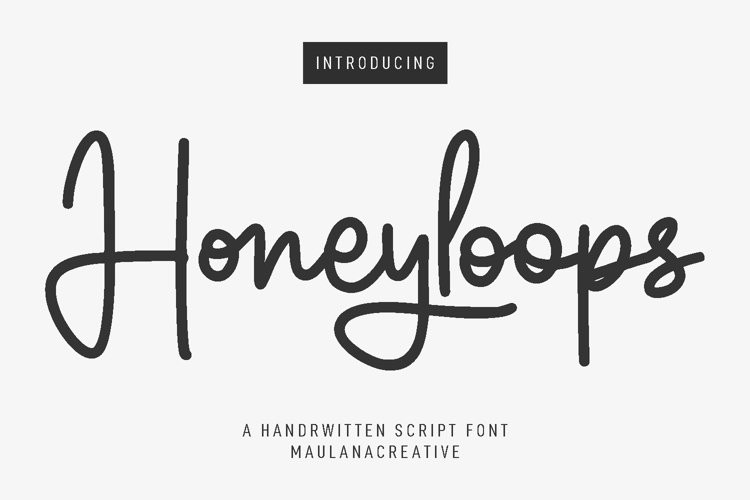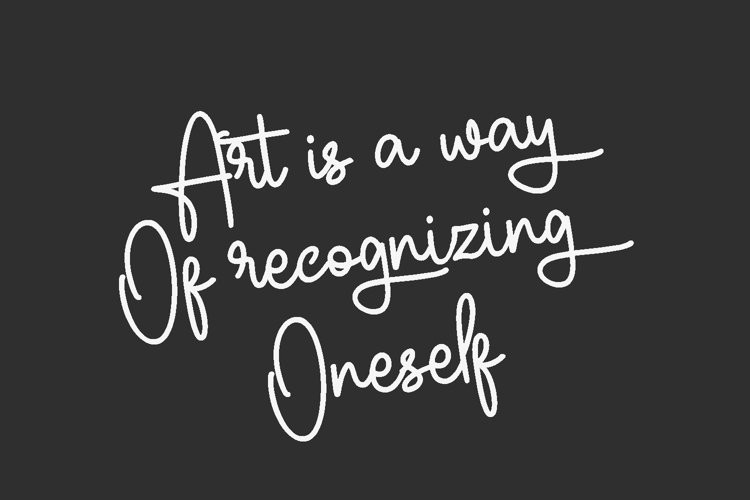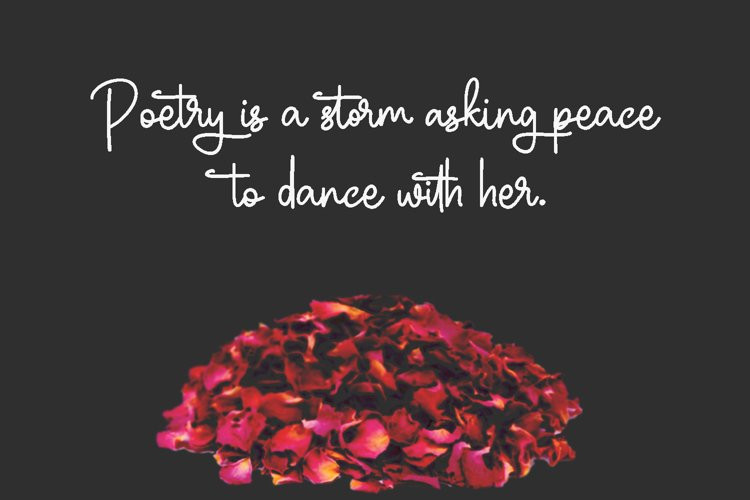
Honeyloops Font
Honeyloops FontHoneyloops is a fancy cursive script font. With medium mono-line stroke, fun character with a bit of ligatures and alternates. To give you an extra creative work. Honeyloops font support multilingual more than 100+ language. This font is good for logo design, Social media, Movie Titles, Books Titles, a short text even a long text letter and good for your secondary text font with sans or serif. Make a stunning work with Honeyloops font.